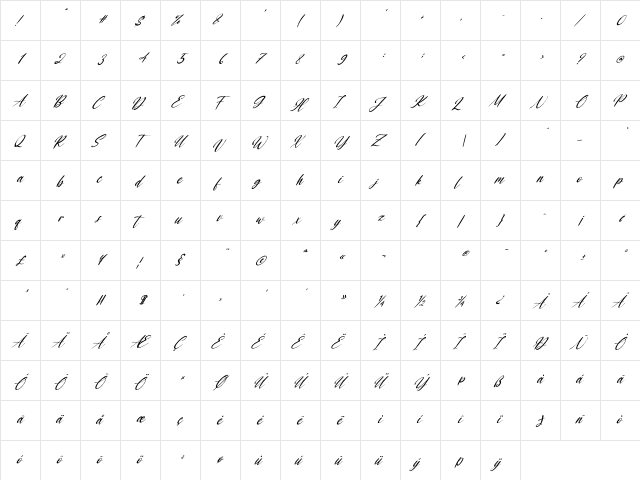
Black Pearl Italic Regular
Design Context for Black Pearl Italic Typeface
Black Pearl Italic is a composed and adaptable typeface that performs quietly and consistently across a wide range of design contexts. The dynamic lean of this cut emphasises speed and emphasis in any layout.
Pro Tip: Try Black Pearl Italic for annotation and caption copy alongside an upright companion — the contrast in angle creates a dynamic but ordered typographic system.